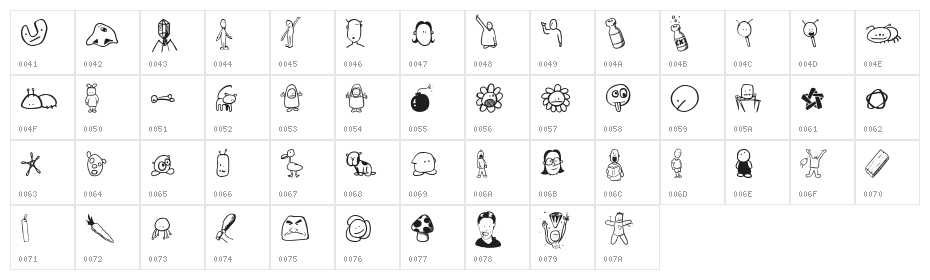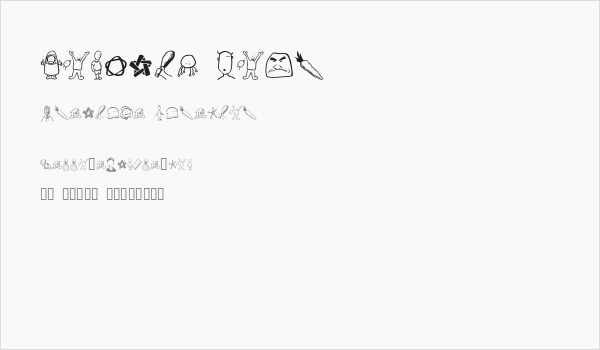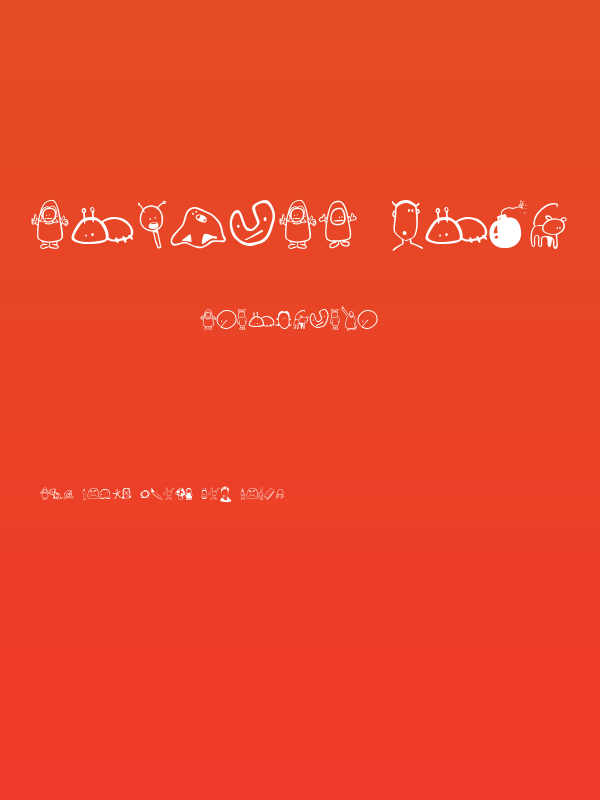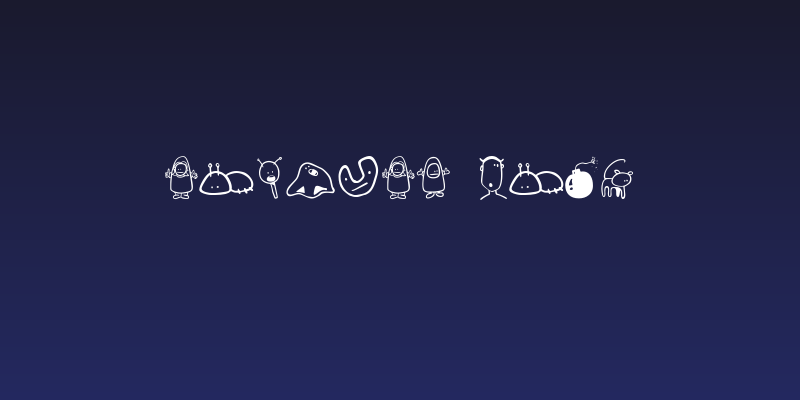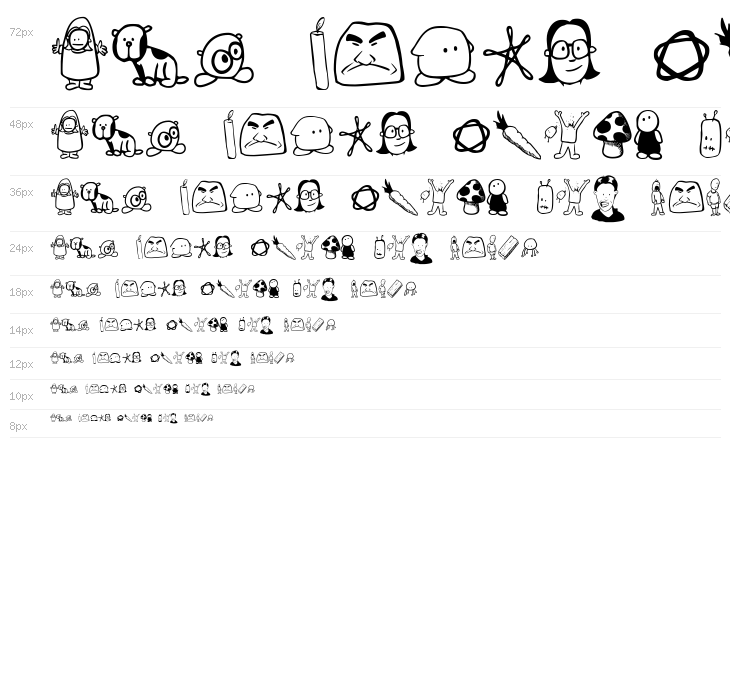
Tombats Four Font
Tombats Four Description
This font is a playful and whimsical collection of doodle-like characters and symbols. Each glyph is a unique illustration, ranging from abstract shapes to quirky figures and objects. The style is hand-drawn, with a casual and informal appearance, making it ideal for creative and fun projects. The characters are bold and easily recognizable, with a consistent line weight that gives them a cohesive look. The font does not follow traditional typographic conventions, focusing instead on artistic expression and visual storytelling.
| Use Case | Logos, Posters, Creative Projects |
| Proposed Projects | Ideal for children's books, playful posters, creative invitations, and any project requiring a fun and artistic touch. |